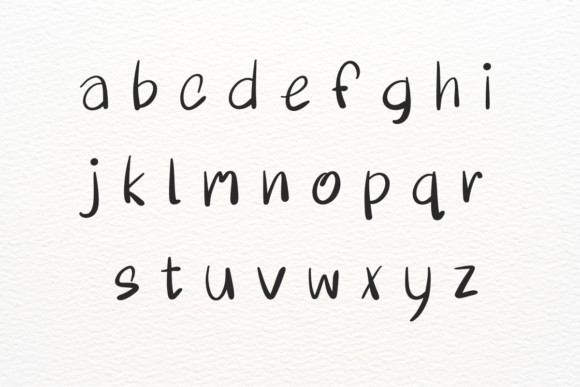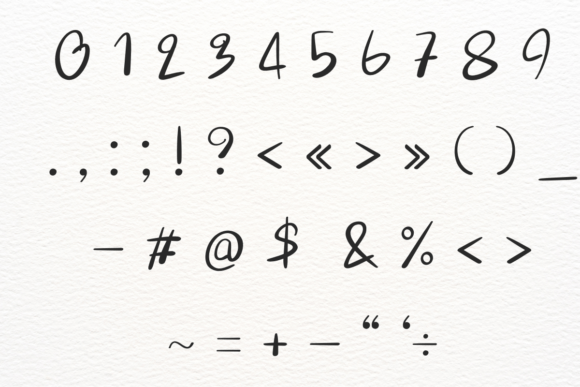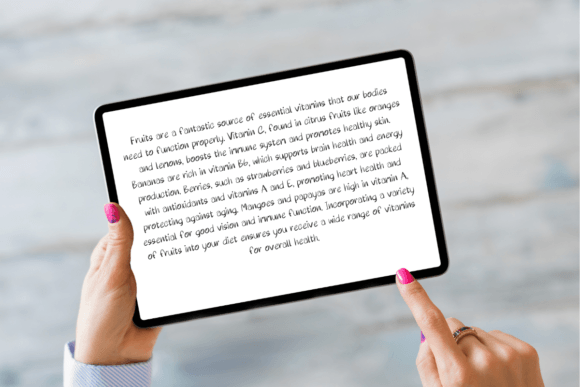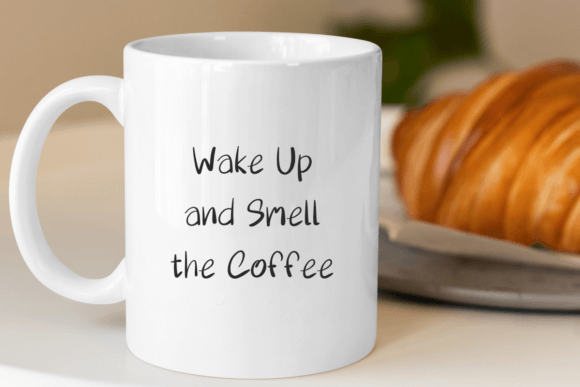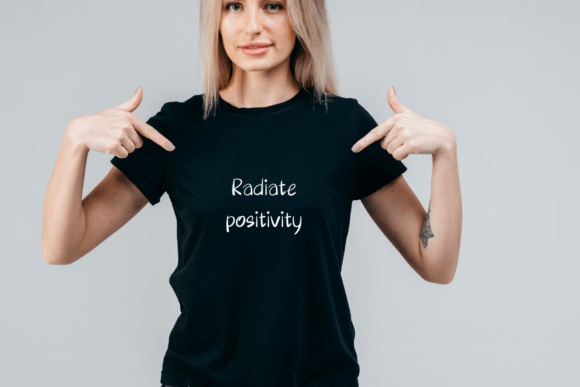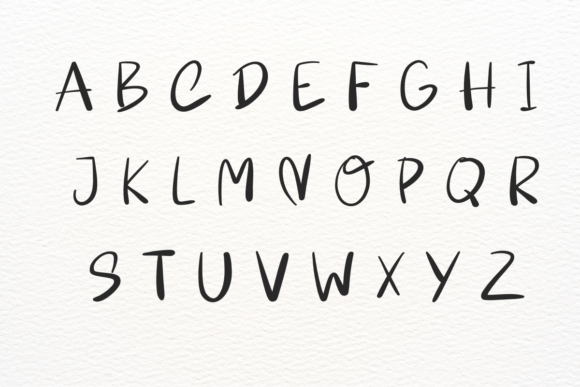
The Ultimate Guide to Berenice Font: Adding a Touch of Whimsy to Your Designs
I’ll never forget the time I was working on a project for a client’s Easter-themed party decorations. I had a clear vision of what I wanted to create, but something was missing – the perfect font. I scrolled through my font library, but nothing seemed quite right. That’s when I stumbled upon Berenice Font, a playful handwritten sans serif font that instantly captured my attention. Its incredibly distinct and timeless style won me over, and I knew I had found the perfect fit for my project.
An Honest Review of Berenice Font
What I Love About Berenice Font
- ✨ Playful and whimsical design that’s perfect for fun projects
- 💕 Unique character set that adds a touch of personality to any design
- 🎉 Extensive language support, making it suitable for international projects
While Berenice Font is an excellent choice for many projects, there are a few things to keep in mind:
- 🤔 Limited suitability for formal or corporate designs, as its playful nature may not be suitable for these types of projects
- ⚠️ Some characters may not work well at very small sizes, so it’s best to use it at larger sizes for optimal results
The Backstory Behind Berenice Font
Berenice Font was designed with the intention of creating a unique, playful font that would add a touch of personality to any design. The designer aimed to create a font that was both fun and legible, making it perfect for creative projects. While the exact inspiration behind the font is unclear, it’s evident that Berenice Font was designed with the modern designer in mind.
Q: What type of projects is Berenice Font best suited for?
A: Berenice Font is perfect for fun projects such as Easter, back to school, wedding, party decoration, invitations, Fall, Halloween, Christmas, posters, blogs, clothing, child-related designs, greeting cards, and more.
Q: Is Berenice Font available in different languages?
A: Yes, Berenice Font has extensive language support, making it suitable for international projects.
Q: Can I use Berenice Font in digital and print projects?
A: Absolutely! Berenice Font is versatile and can be used in both digital and print projects, from social media posts to business cards and more.